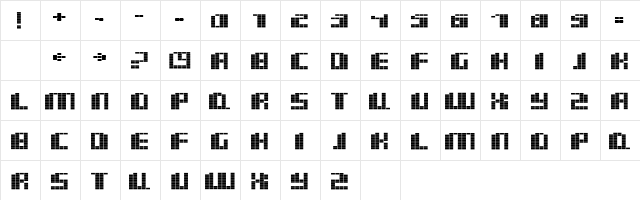
basm Regular
Design Context for basm Typeface
basm is a composed and adaptable typeface that performs quietly and consistently across a wide range of design contexts.